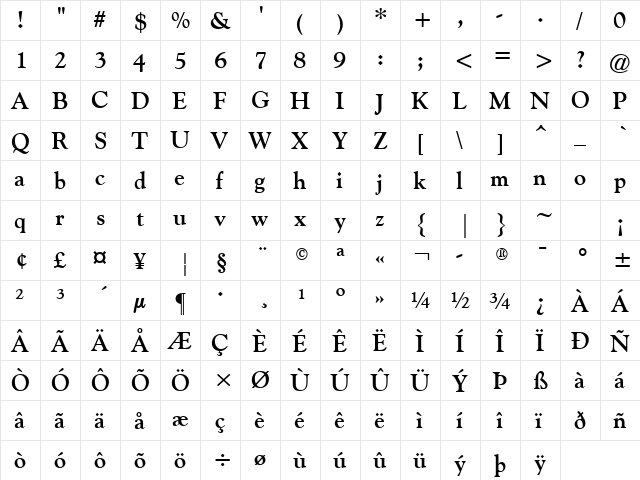
Goudi Olde Style Bold
Design Context for Goudi Olde Style Typeface
Goudi Olde Style offers clean, dependable letterforms without strong stylistic allegiance, making it a practical choice for designers who need flexibility. The heavy weight commands attention and anchors typographic hierarchies.
Pro Tip: Use Goudi Olde Style in both headline and body roles to test its range before committing to a single application.